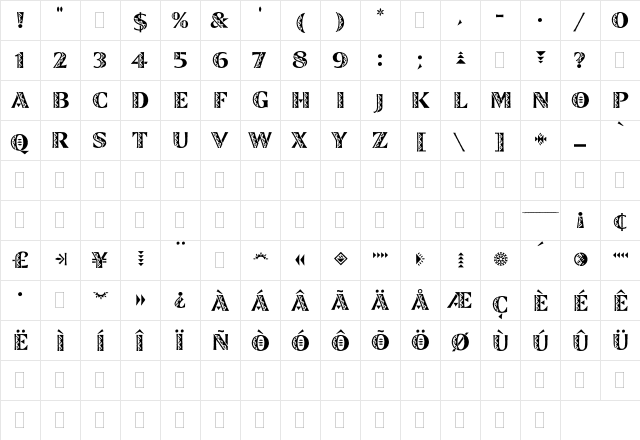
Zinjaro Plain
Design Context for Zinjaro Typeface
Zinjaro is a composed and adaptable typeface that performs quietly and consistently across a wide range of design contexts.